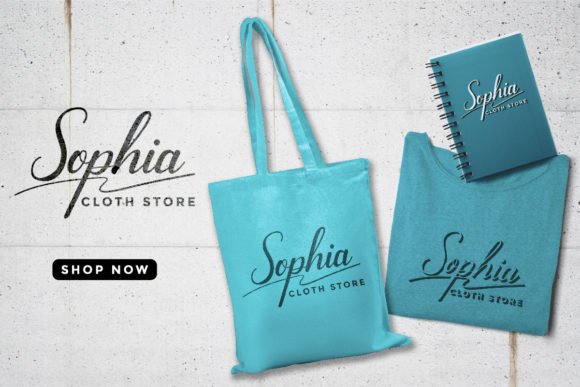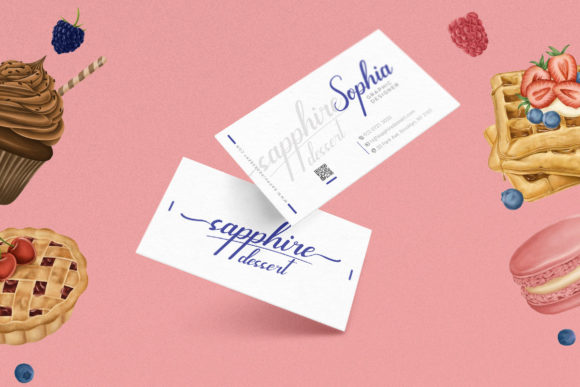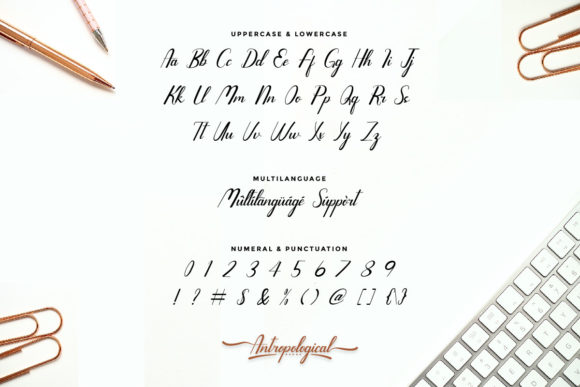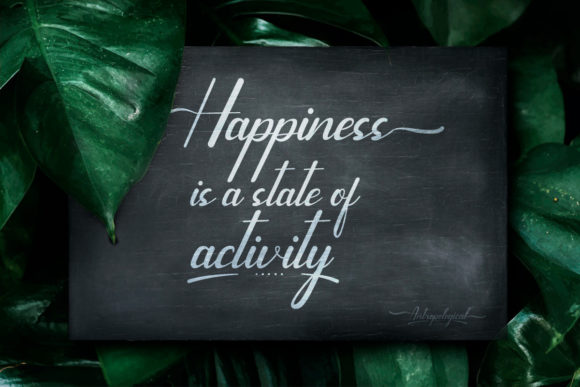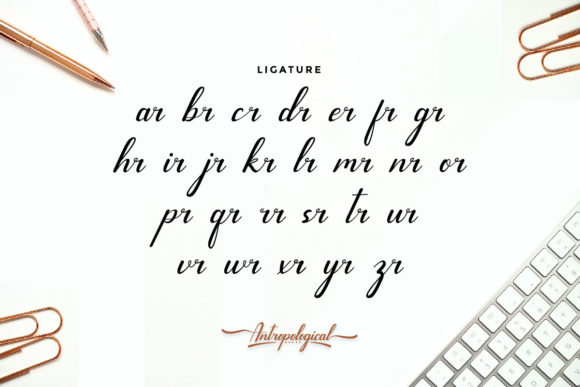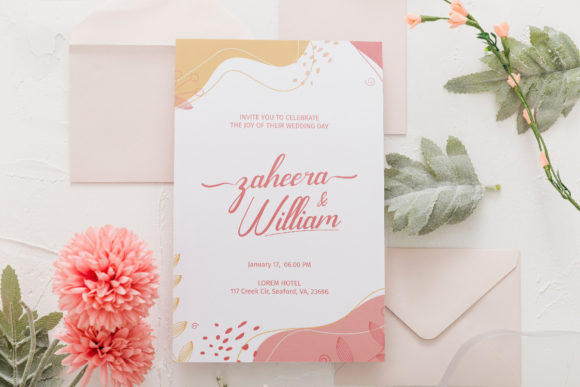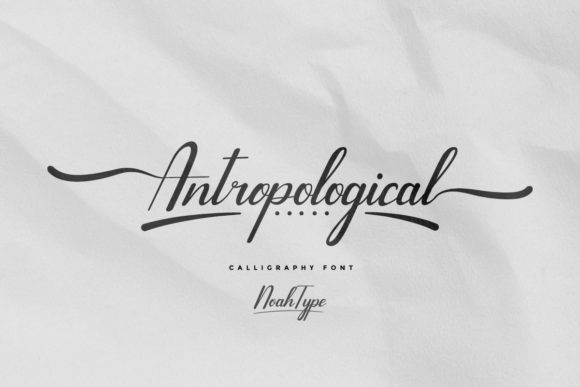
Discover the Charm of Antropological Font: Elevate Your Designs with Elegance
Are you a designer or crafter looking for a font that adds a touch of sophistication and whimsy to your creations? Look no further than the Antropological Font. This beautiful, handwritten font is perfect for a variety of design projects, from wedding invitations and greeting cards to logos and business cards. In this article, we’ll explore the unique features of Antropological Font and how it can elevate your designs.
A Font that Exudes Elegance and Charm
Antropological Font is a true gem in the world of typography. Its elegant, cursive script is both charming and refined, making it perfect for designs that require a personal touch. Whether you’re creating wedding invitations, thank you cards, or quotes, this font is sure to impress. Its flowing lines and delicate swashes add a level of sophistication that will make your designs stand out.
One of the best things about Antropological Font is its versatility. It’s suitable for a wide range of design projects, including:
- Quotes and social media graphics
Wherever you need to add a touch of elegance and whimsy, Antropological Font is the perfect choice.
Antropological Font is PUA (Private Use Area) encoded, which means that you can access all of the glyphs and swashes with ease. This feature makes it easy to customize your designs and add unique touches that will make them stand out. With PUA encoding, you can:
- Access a wide range of glyphs and swashes
- Customize your designs with ease
- Add unique touches to your projects
Why Choose Antropological Font?
So, why should you choose Antropological Font for your design projects? Here are just a few reasons:
- Elegance and charm: Antropological Font exudes elegance and charm, making it perfect for designs that require a personal touch.
- Versatility: This font is suitable for a wide range of design projects, from wedding invitations to logos and business cards.
- Easy to use: With PUA encoding, you can access all of the glyphs and swashes with ease, making it simple to customize your designs.
- Unique and creative: Antropological Font is a unique and creative font that will add a touch of sophistication to your designs.
In conclusion, Antropological Font is a beautiful, handwritten font that is perfect for designers and crafters looking to add a touch of elegance and whimsy to their creations. With its elegant, cursive script and PUA encoding, this font is versatile, easy to use, and perfect for a wide range of design projects. Whether you’re creating wedding invitations, logos, or business cards, Antropological Font is sure to impress. So why wait? Download Antropological Font today and elevate your designs with elegance and charm.